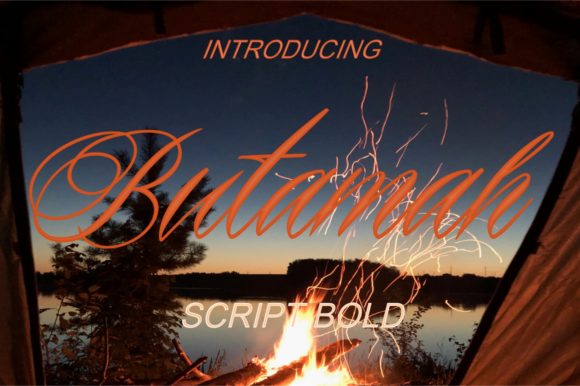
The Butamah Font: A Timeless Elegance for Your Designs
I’ll never forget the moment I stumbled upon the perfect font for a client’s wedding invitation project. I had been searching for hours, trying out different fonts, but none seemed to capture the essence of the elegant and classic vibe my client was looking for. That was until I discovered the Butamah font. ✨ With its beautiful handwritten style, touch of elegance, and friendly feel, it was love at first sight! In this article, I’ll share with you what makes Butamah a standout font, its features, and how to make the most of it in your designs.
A Personal Review: What I Love About Butamah
Butamah is more than just a font; it’s a design statement. Here’s what I love about it:
• ✨ Timeless elegance: Butamah combines classic style with a friendly feel, making it perfect for a wide range of design projects.
• ✅ PUA encoded: This means easy access to all the great glyphs and swashes, giving you endless creative possibilities.
• 🔍 Rich in features: With alternate glyphs, ligatures, and more, you can add depth and uniqueness to your designs.
No font is perfect, and Butamah is no exception. Here are a few things to keep in mind:
• ⚠️ Legibility at small sizes: While Butamah is stunning at larger sizes, it can get a bit tricky to read at smaller sizes. Make sure to test it out in different contexts.
• 🤔 Overuse of swashes: While the swashes are beautiful, too many can make your design look cluttered. Balance is key.
The Story Behind Butamah
Butamah was created with the intention of blending traditional calligraphy with modern design sensibilities. The designer aimed to create a font that feels both luxurious and approachable, perfect for projects that require a touch of elegance without being too formal. While the exact details about the designer might be scarce, the love and care put into crafting Butamah are evident in its timeless appeal.
Is Butamah suitable for body text? While Butamah is stunning for headings and titles, its legibility at smaller sizes might make it less ideal for long body texts. Consider using it for headings and a more readable font for the body.
Butamah is a beautiful addition to any designer’s font library. Its elegance, versatility, and rich features make it perfect for a wide range of projects, from wedding invitations to branding and advertising. With its easy-to-use OpenType features and friendly feel, Butamah is sure to elevate your designs to the next level.